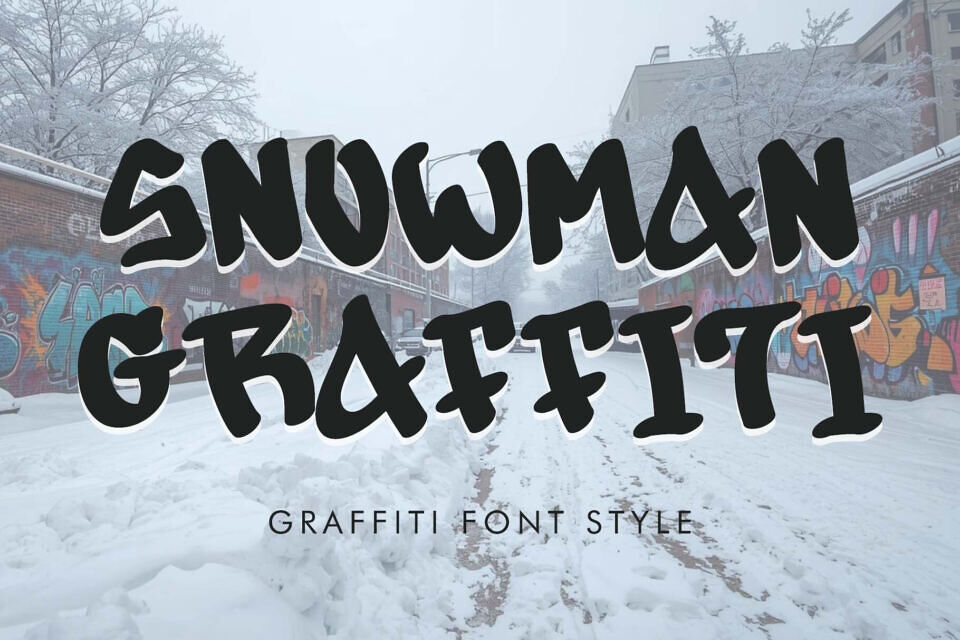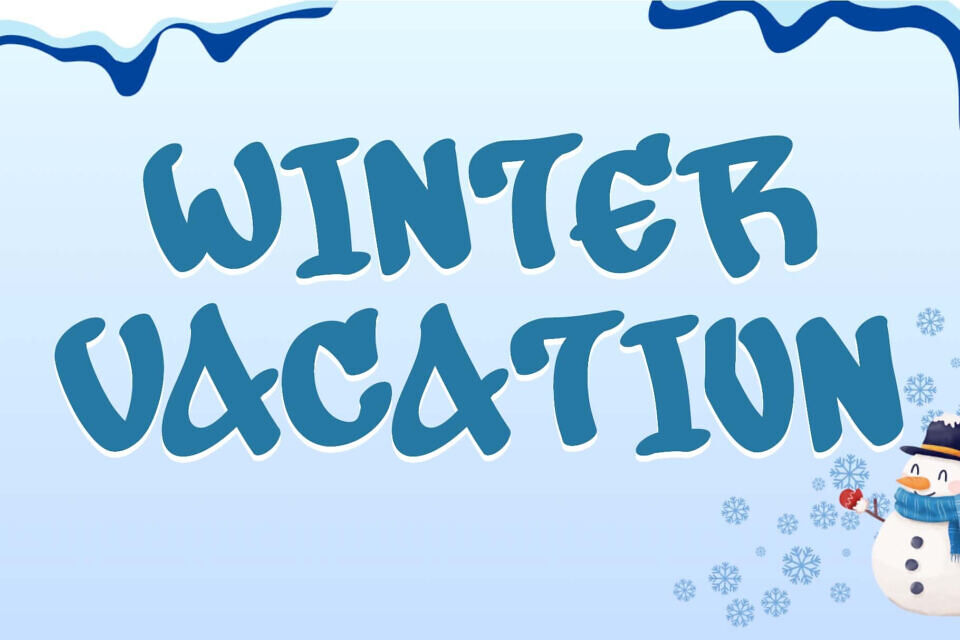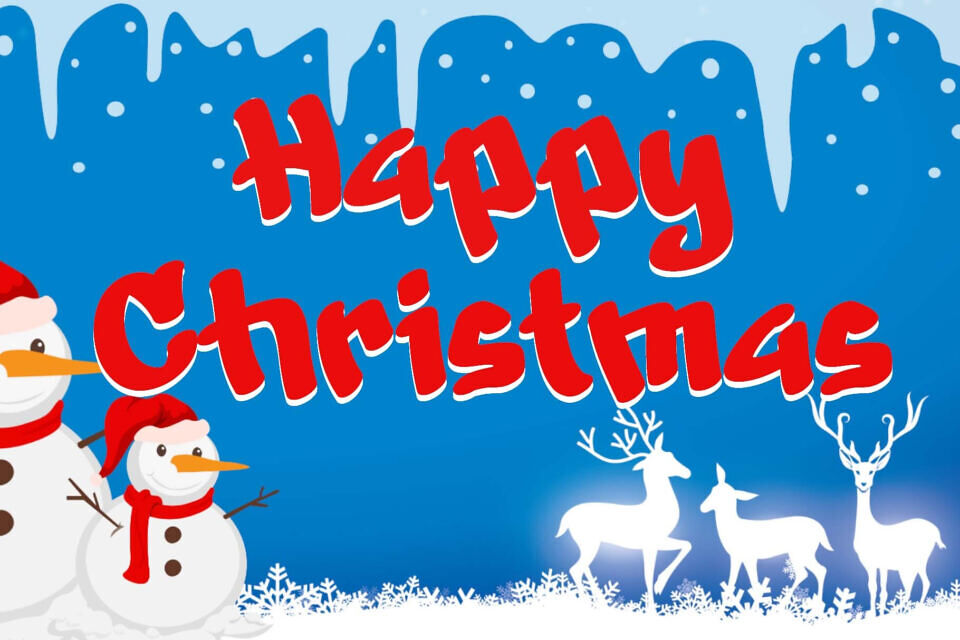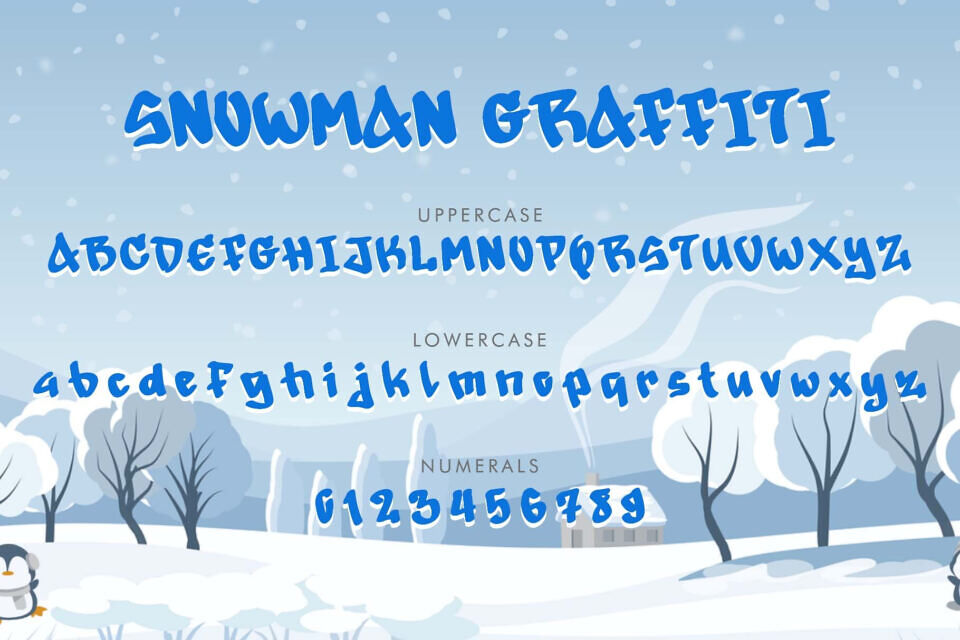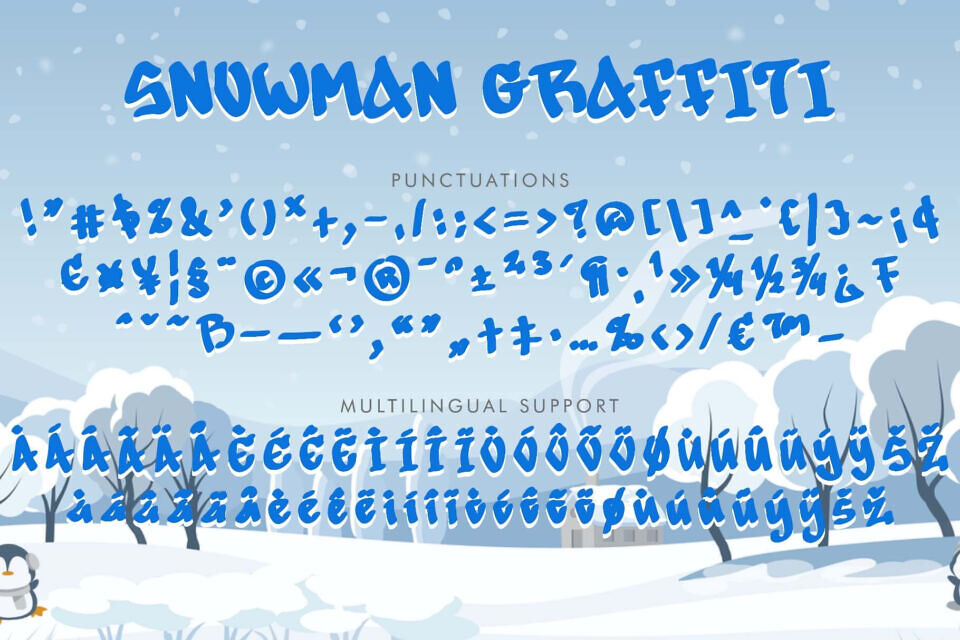
Snowman Graffiti is a modern and elegant graffiti font. It features uppercase and lowercase letters, numerals, punctuation, and multilingual support. It’s perfect for Christmas, Halloween, fall, autumn, winter, spring, and summer, graffiti, comics, movie titles, magazines, banners, posters, logos, vacations, holidays, stickers, tattoos, branding, and more.